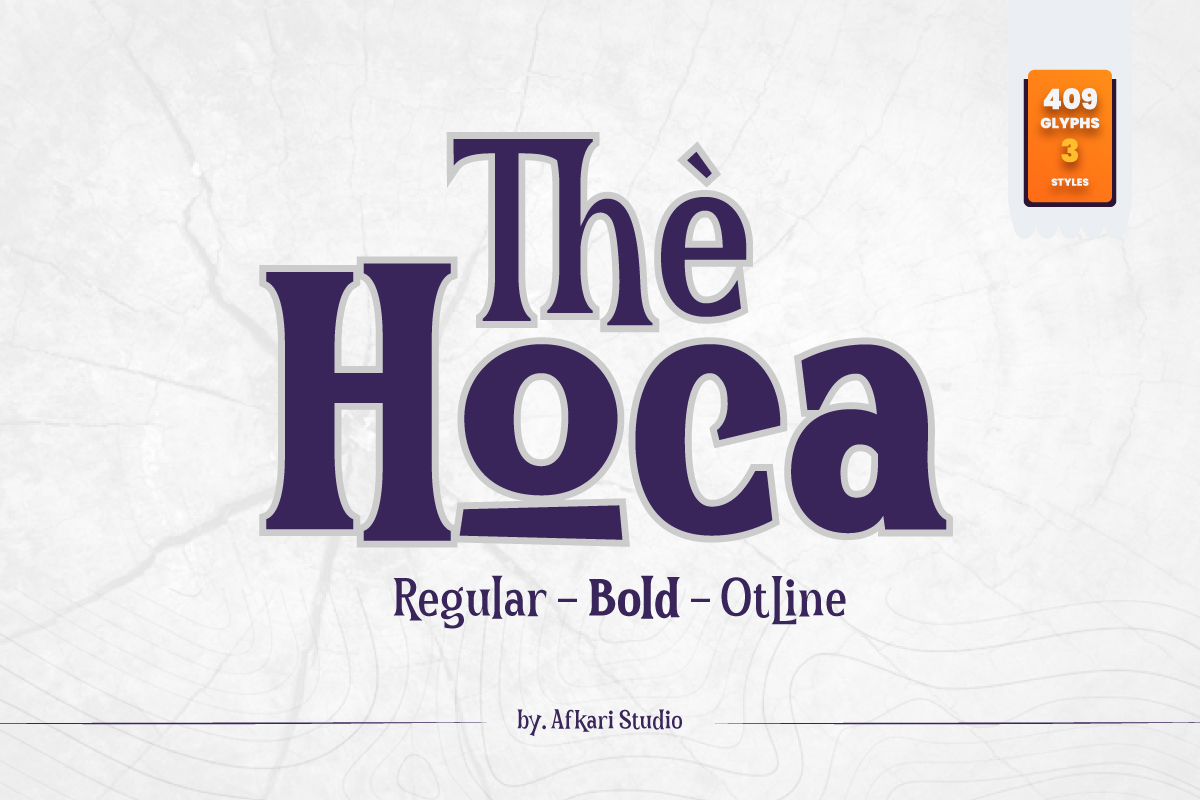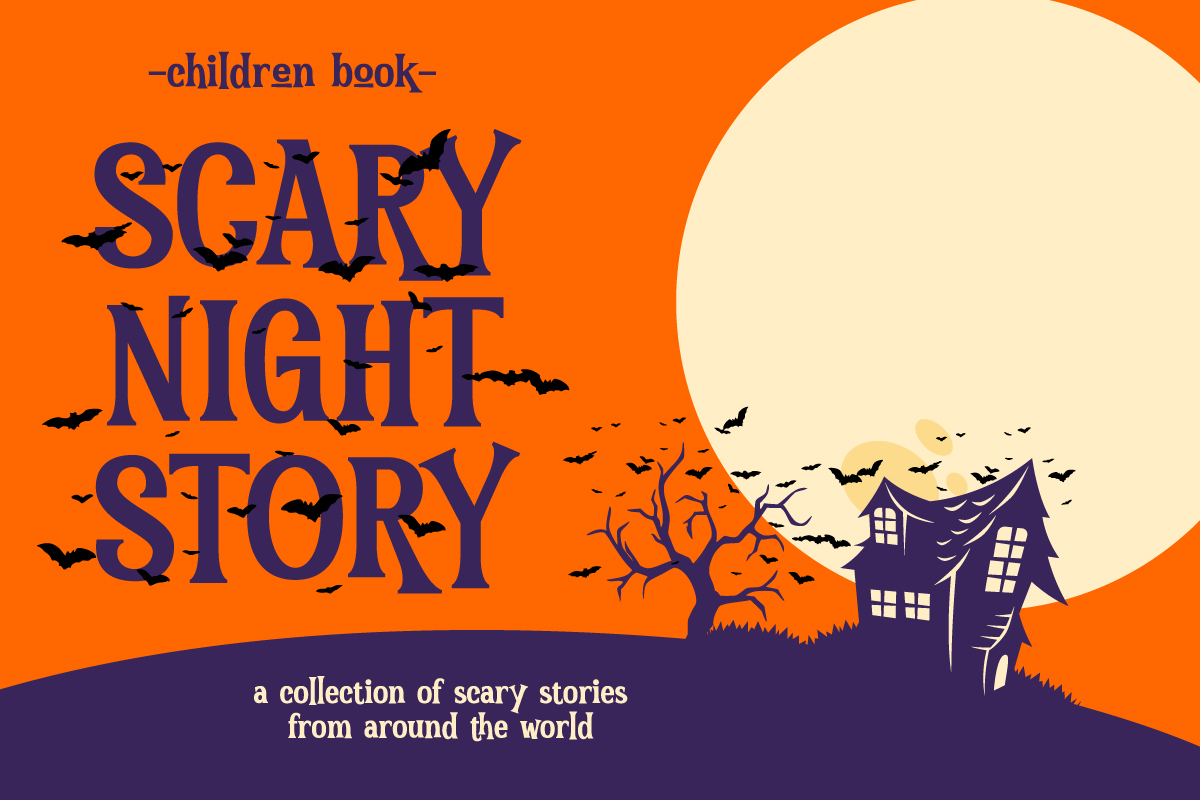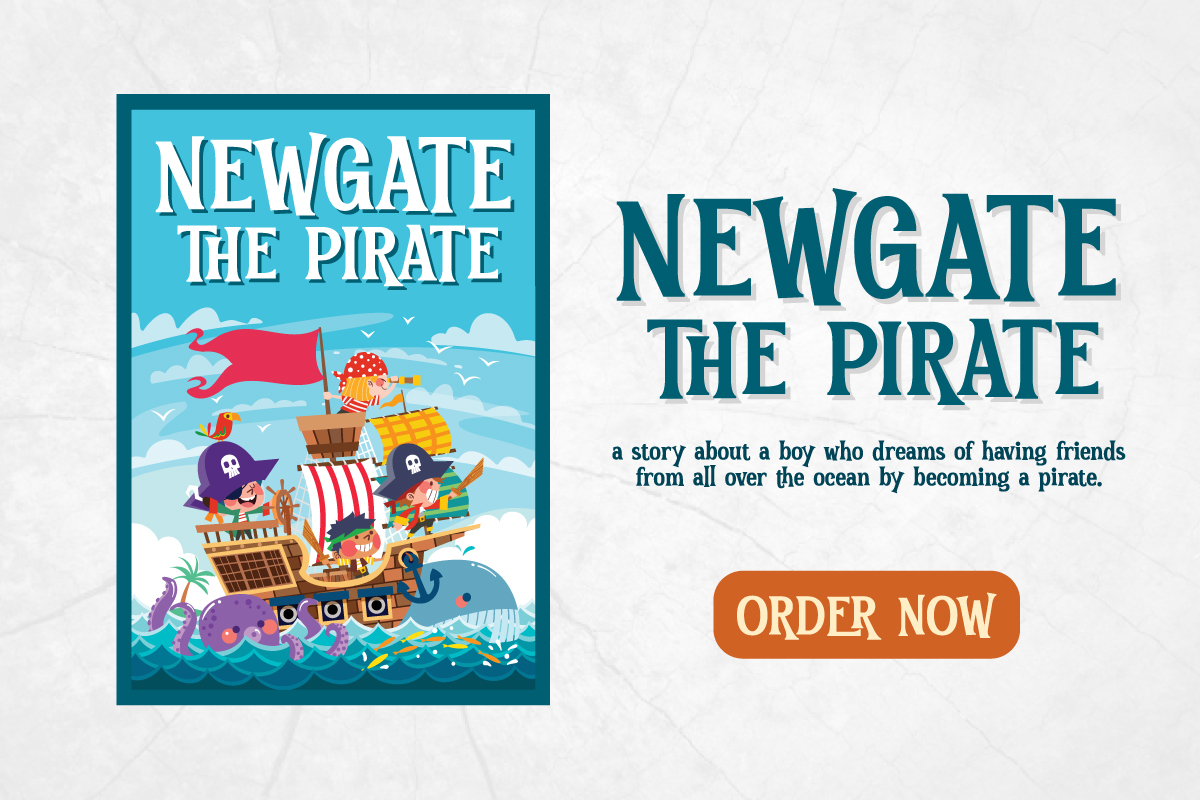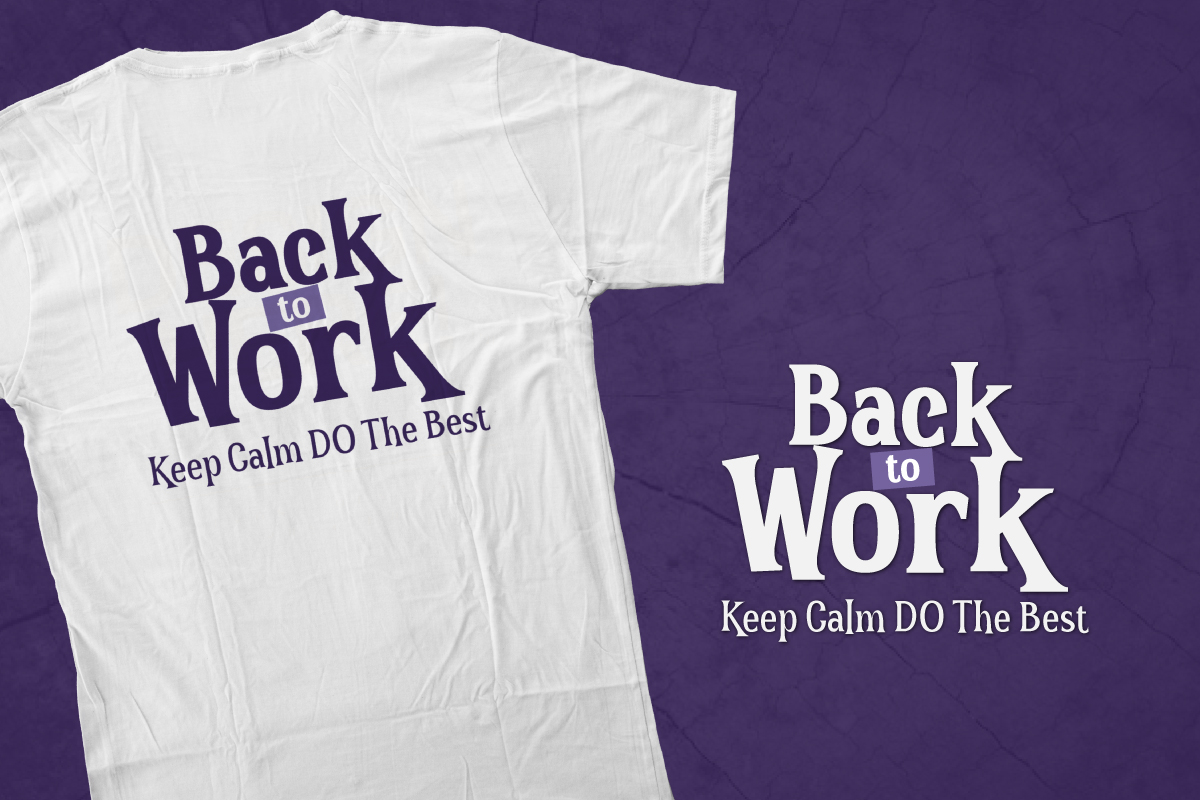
The Hoca Font
The Hoca Serif Font made with unique typeface font and also has vintage serif display font. This font is suitable for any branding of your design needs, project, labeling, clothing, movie sceen, poster, studio brand, holloween design, magic design, kids design, movie title, gigs, invitations, social media posts, clothing, any poster desing, cafe/resto sign, album covers, logos, and much more.
The Hoca – Display Serif Font